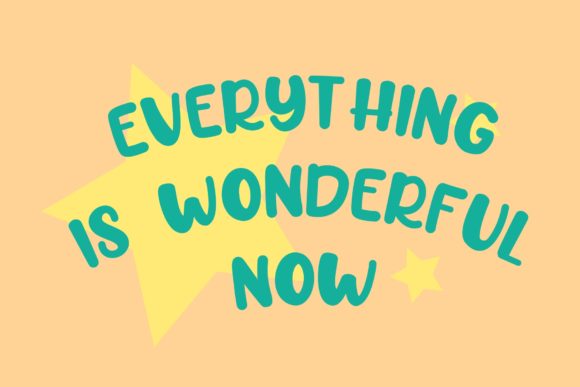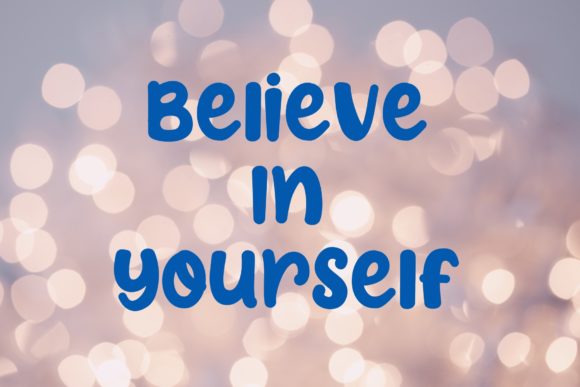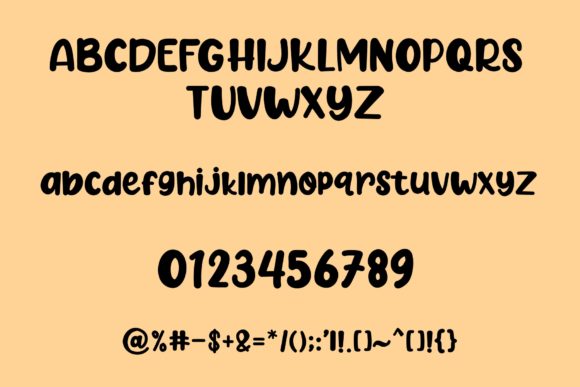
Believe Font
About Believe Font
Believe is a fun and chunky lettered handwritten font. Simple and unique, this font is ideal for any casual design you wish to develop.